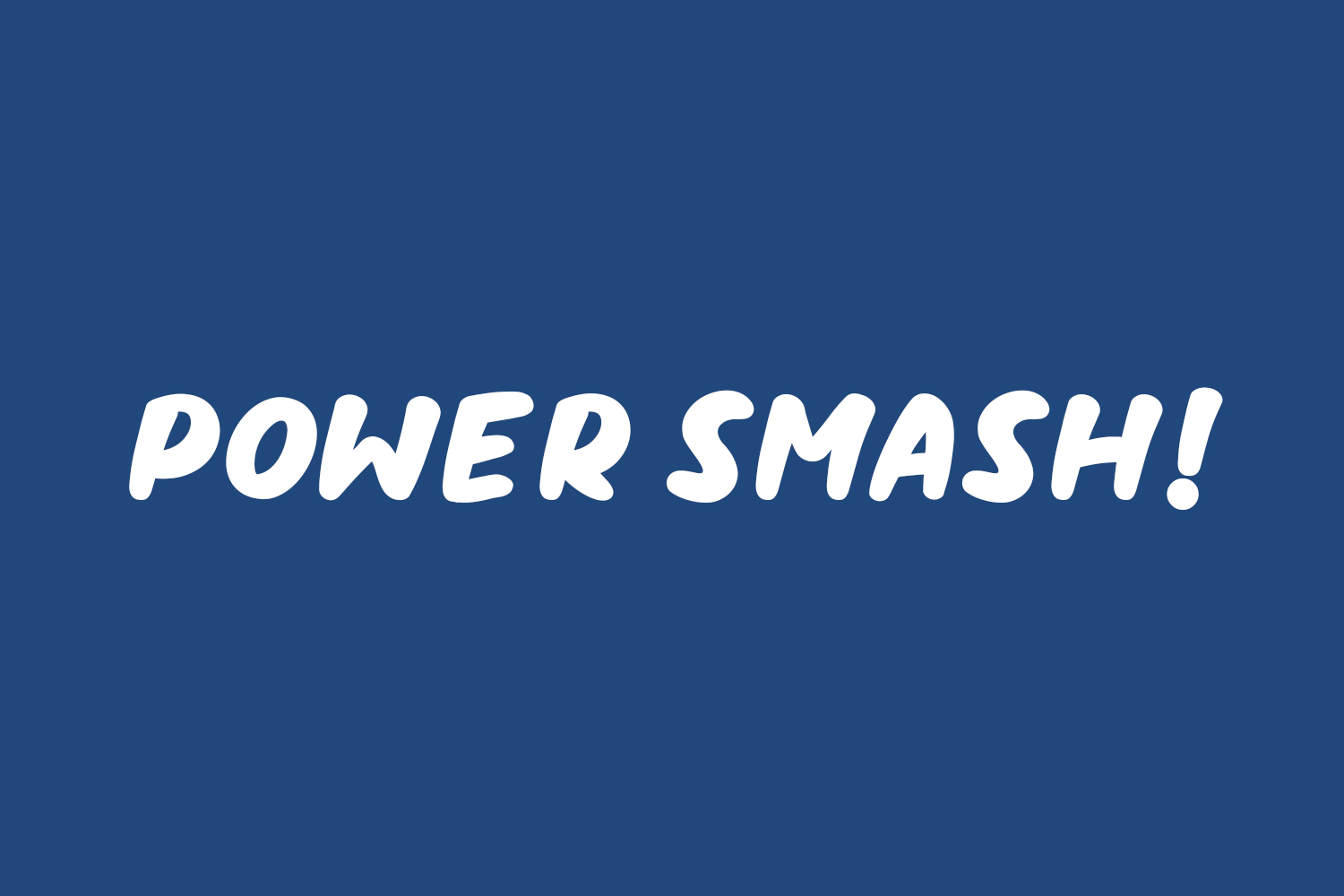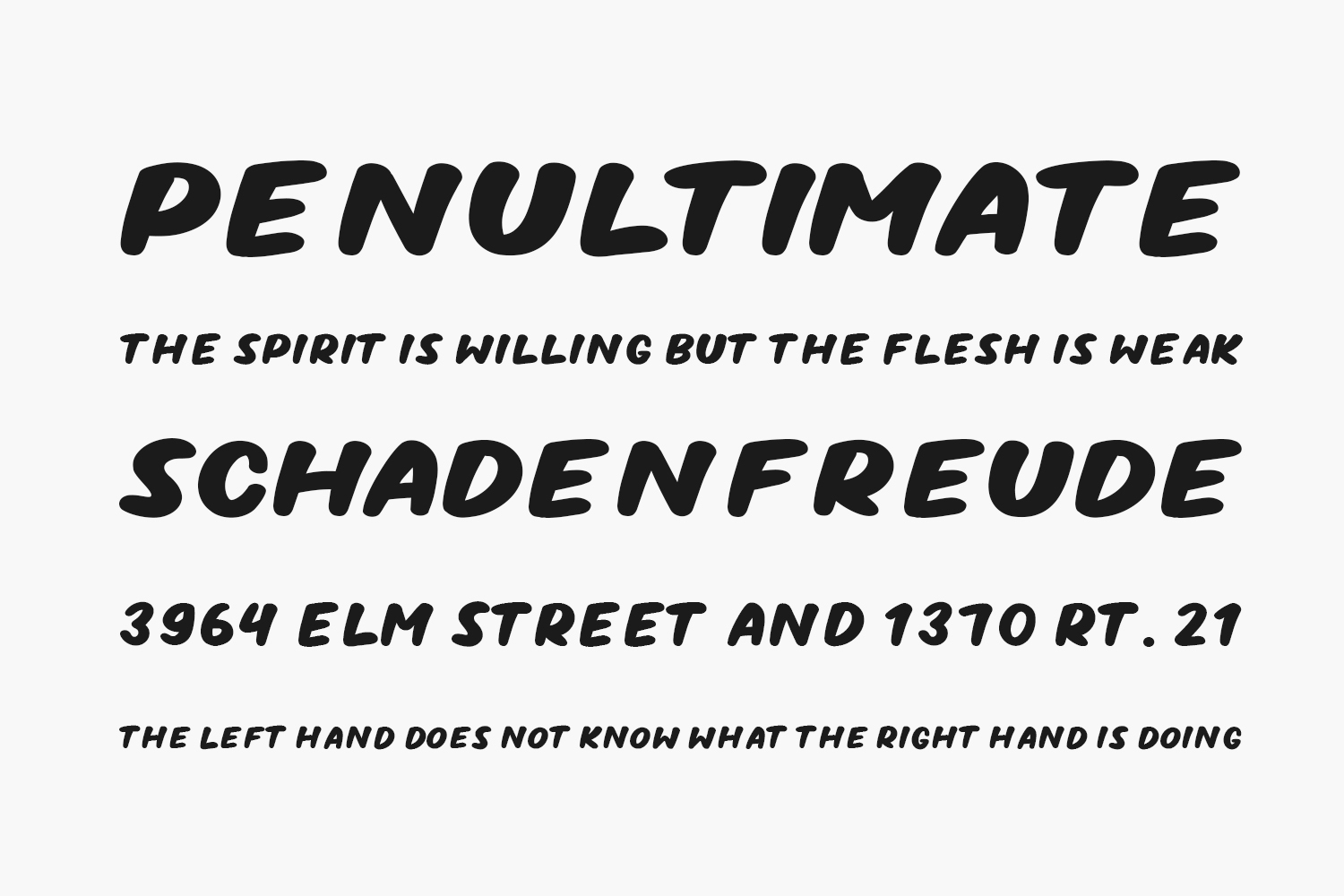
Power Smash Free Font is a vibrant and dynamic display font that exudes coolness and boldness. Perfect for cartoon-themed designs, children’s games, or any project in need of a playful touch, this font is sure to make a memorable statement. Choose Power Smash for an incredible addition to your creative arsenal. Download the font for free if you need it for personal use or purchase the full version for commercial use.
Designed by Eifetstype